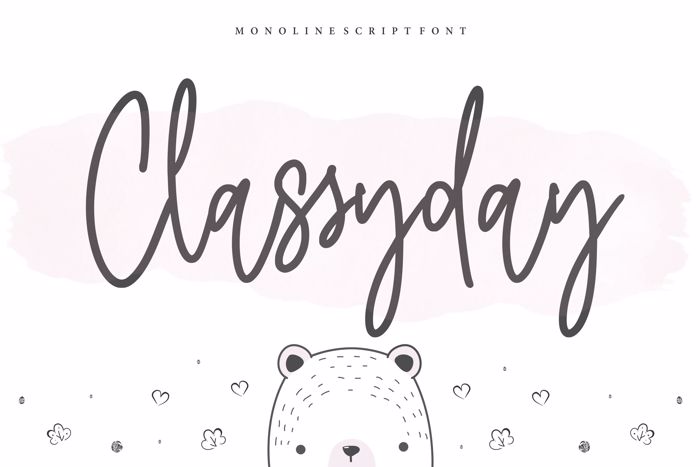
Classyday Font
Proudly Present, Classyday Font.
Classyday is a monoline script font.
Classyday is perfect for product packaging, branding project, megazine, social media, wedding, or just used to express words above the background.